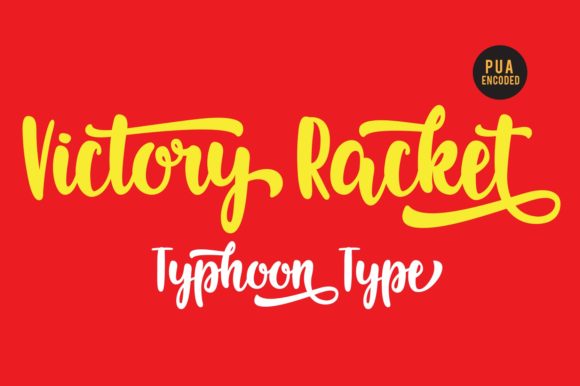
Victory Racket Font
About Victory Racket Font
The Victory Racket is a striking script font. It’s perfect for logos, name tags, advertising, product packaging, clothing, social media & greeting cards.